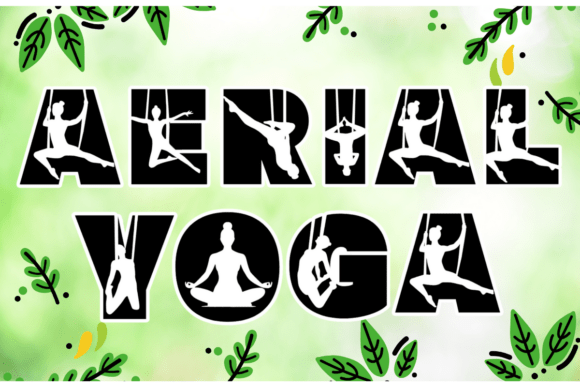
Introduction to Aerial Yoga Font
Elevate your creativity with this aerial yoga font featuring stunning silhouettes of yoga poses in hammocks.
Ideal for fitness branding, yoga studios, and wellness projects .
Key Features of Aerial Yoga Font
Why Choose Aerial Yoga Font?
Aerial Yoga Font offers exceptional quality and versatility, making it a valuable addition to your design toolkit. Whether you’re creating for personal projects or commercial use, Aerial Yoga Font delivers professional results.